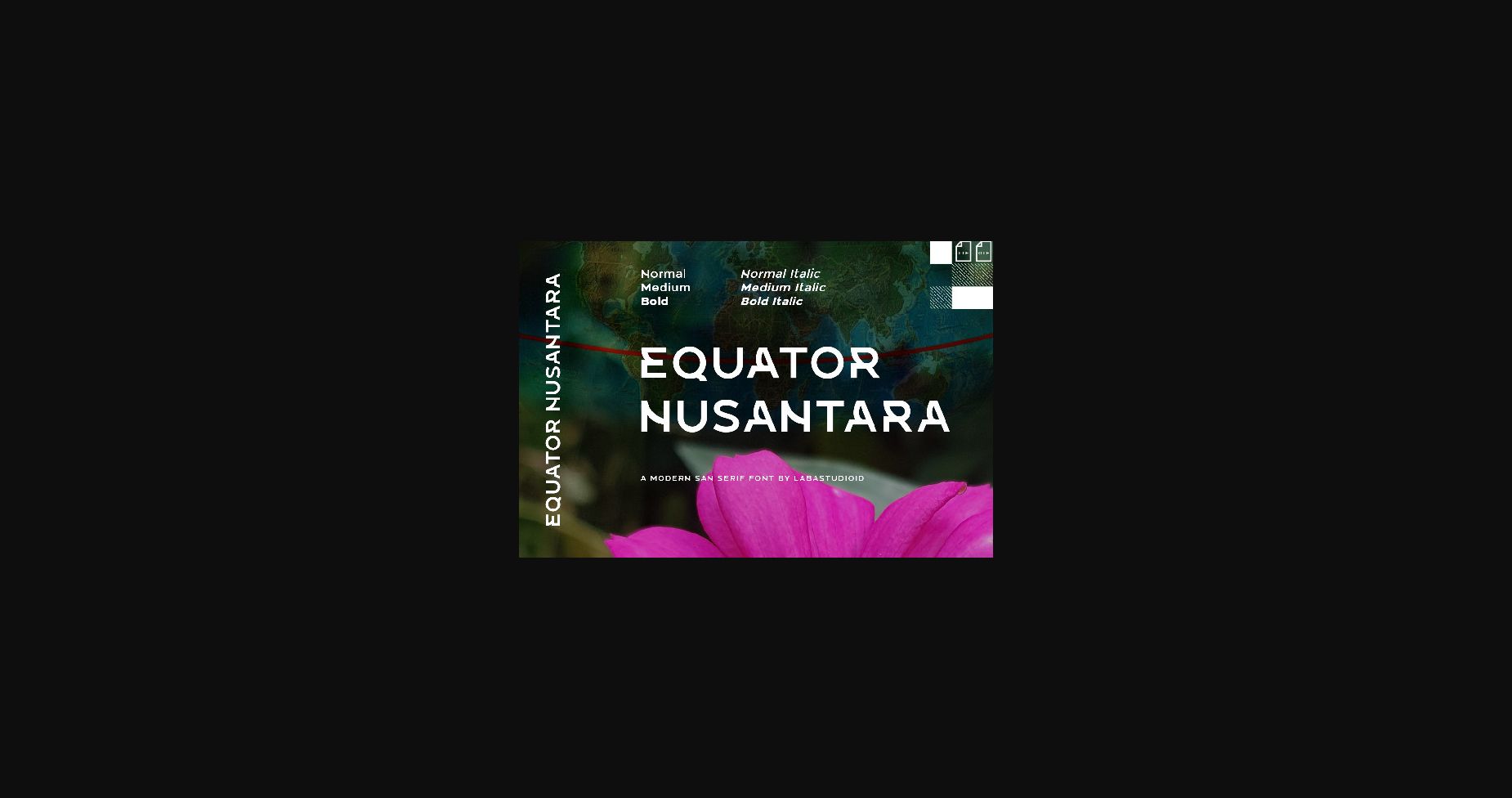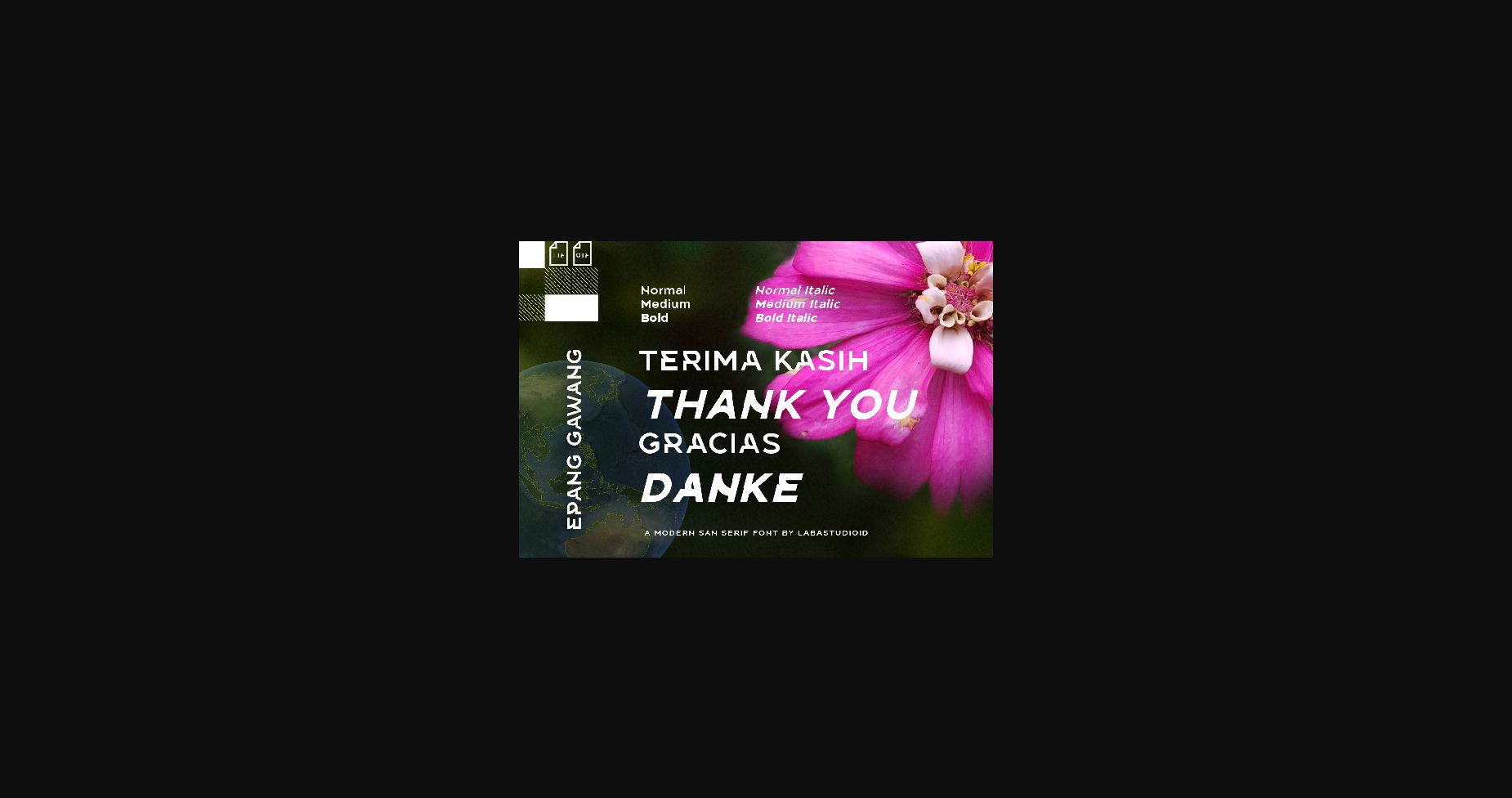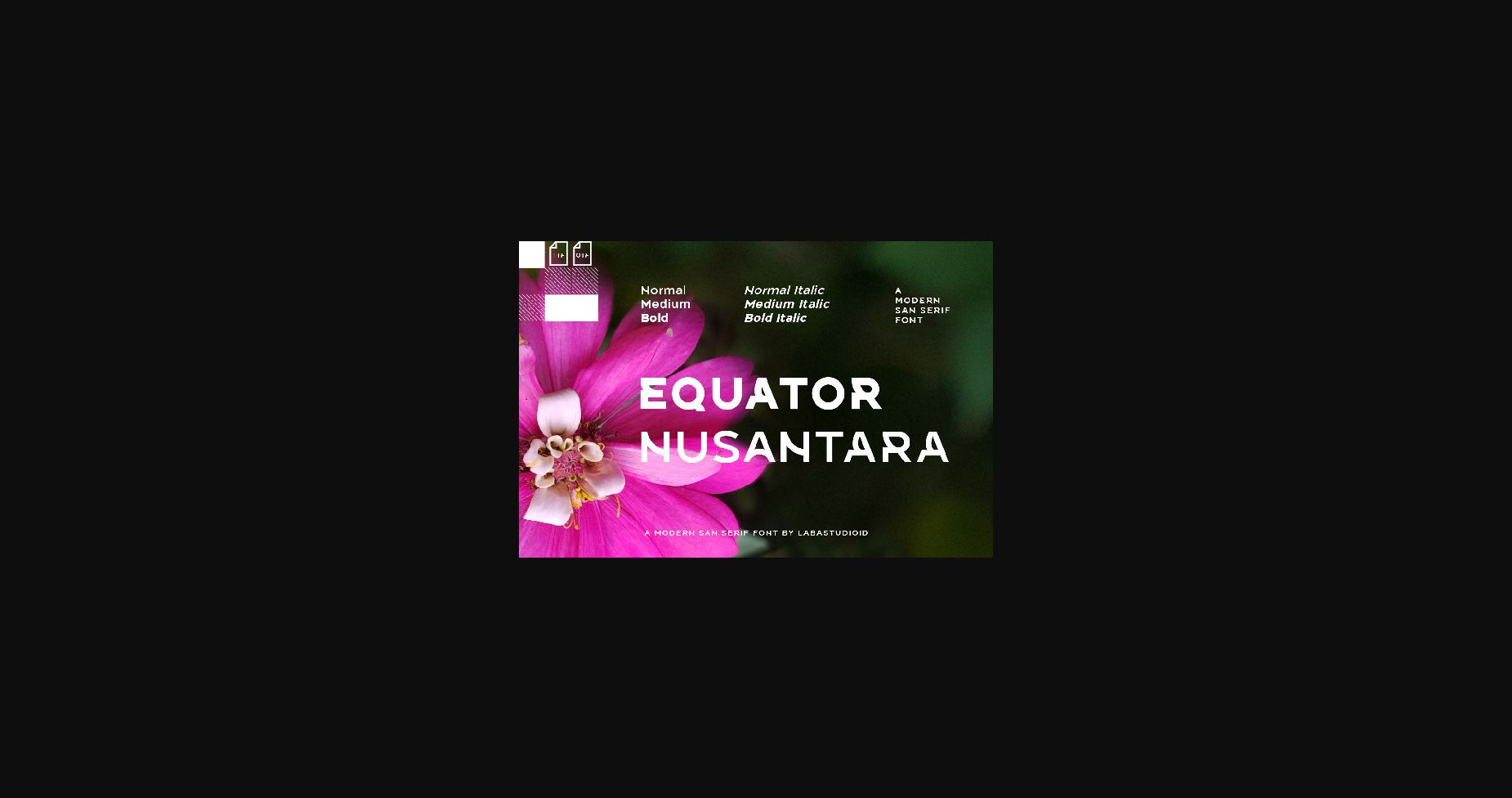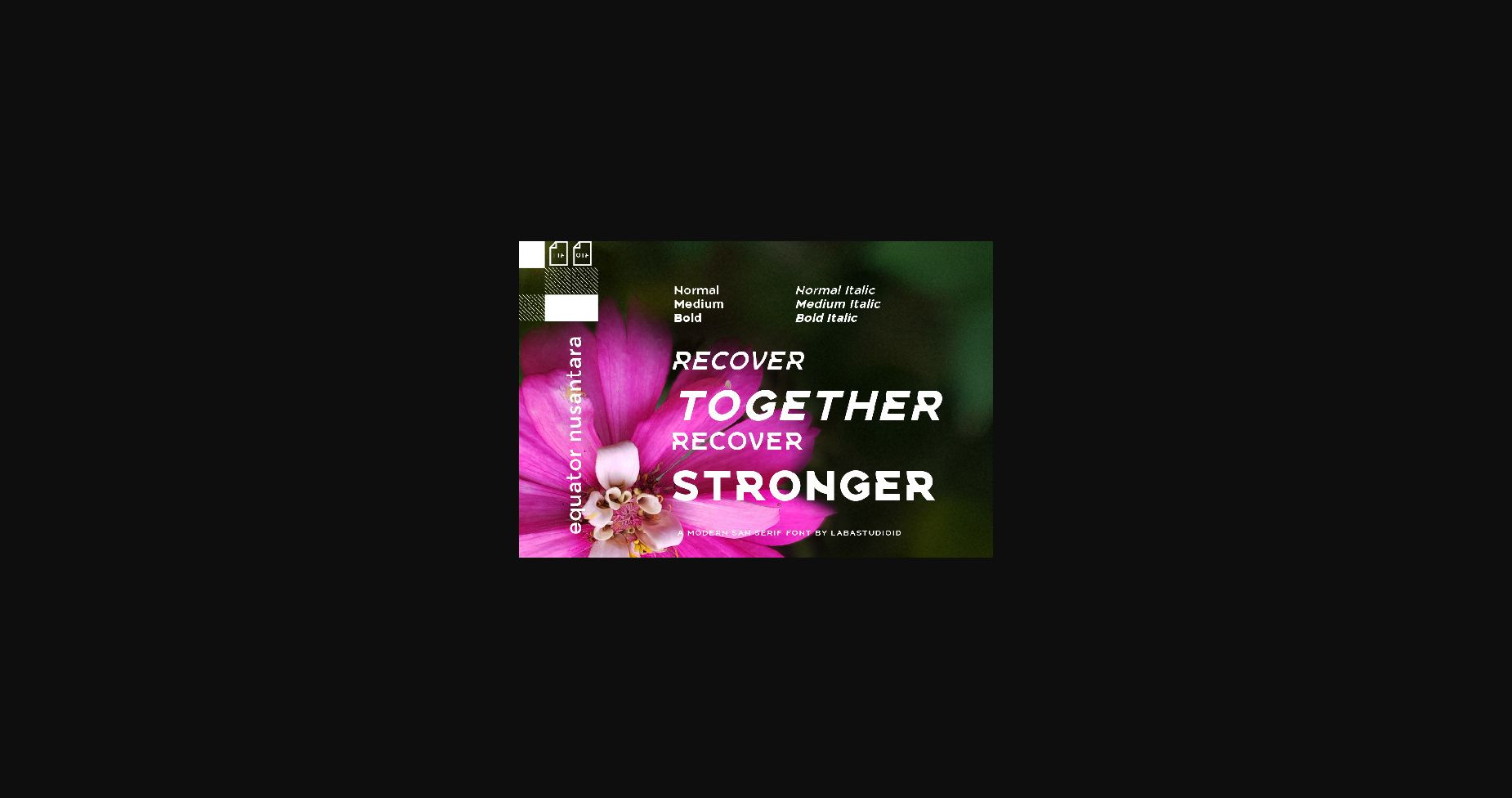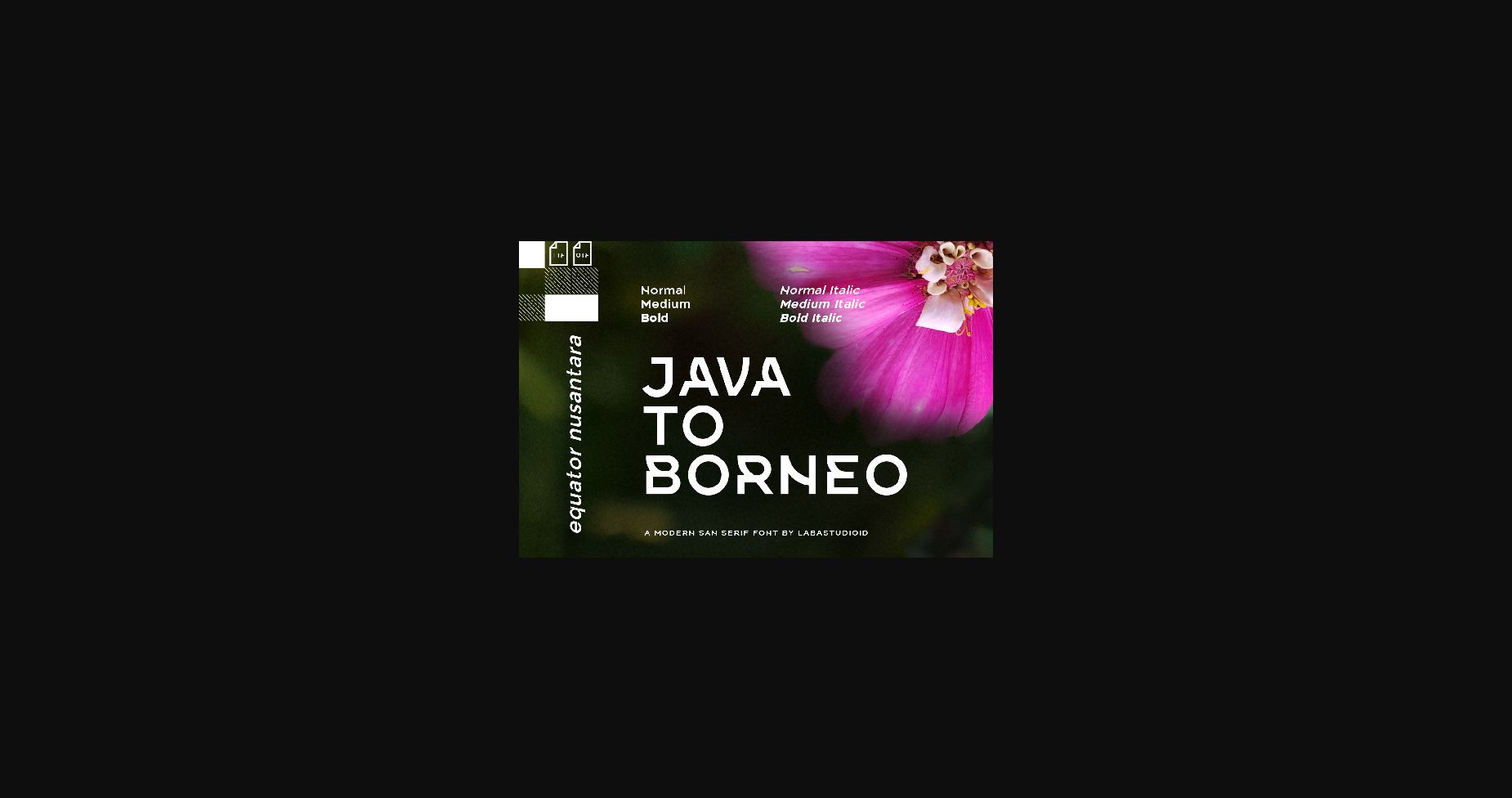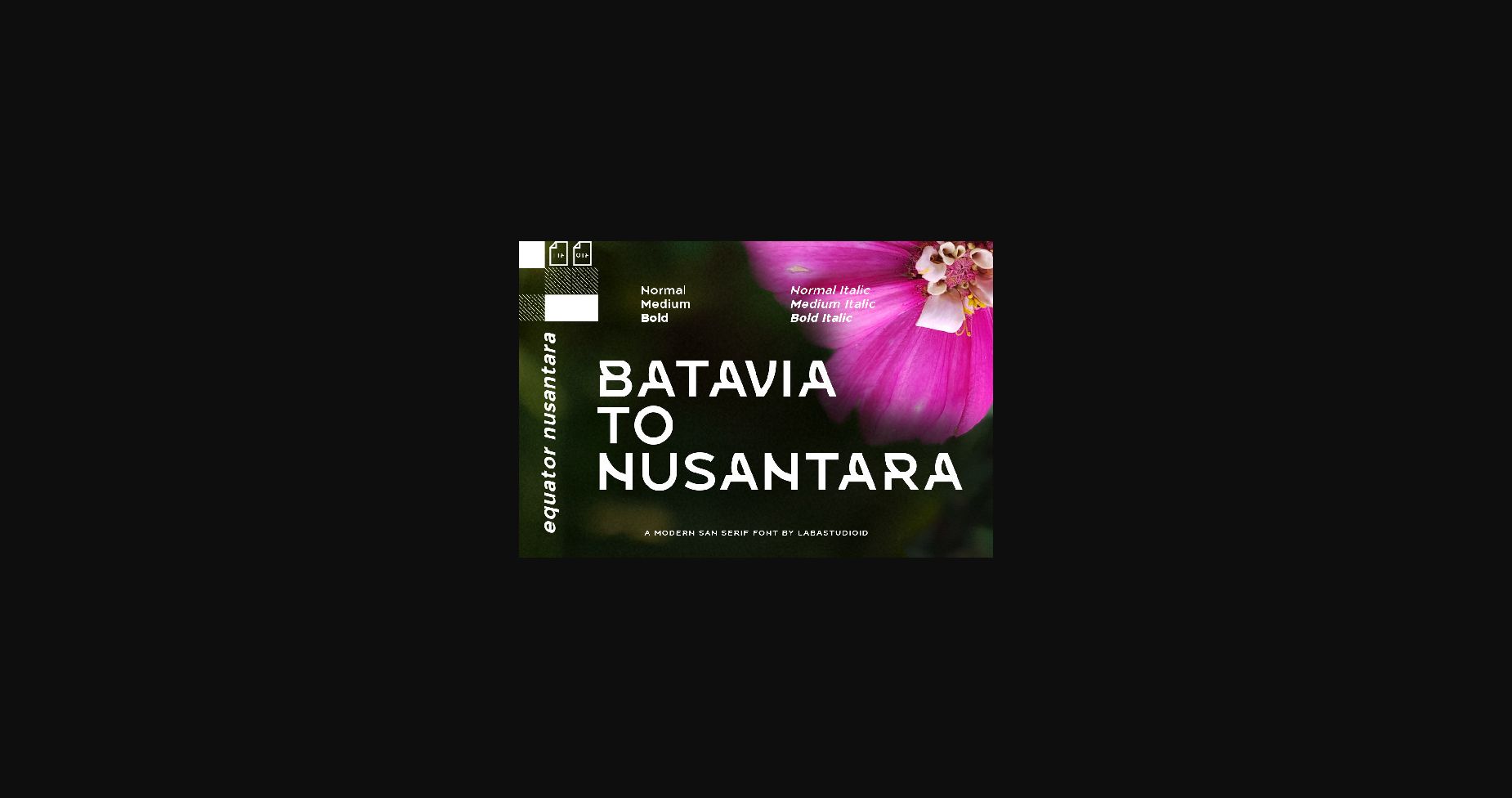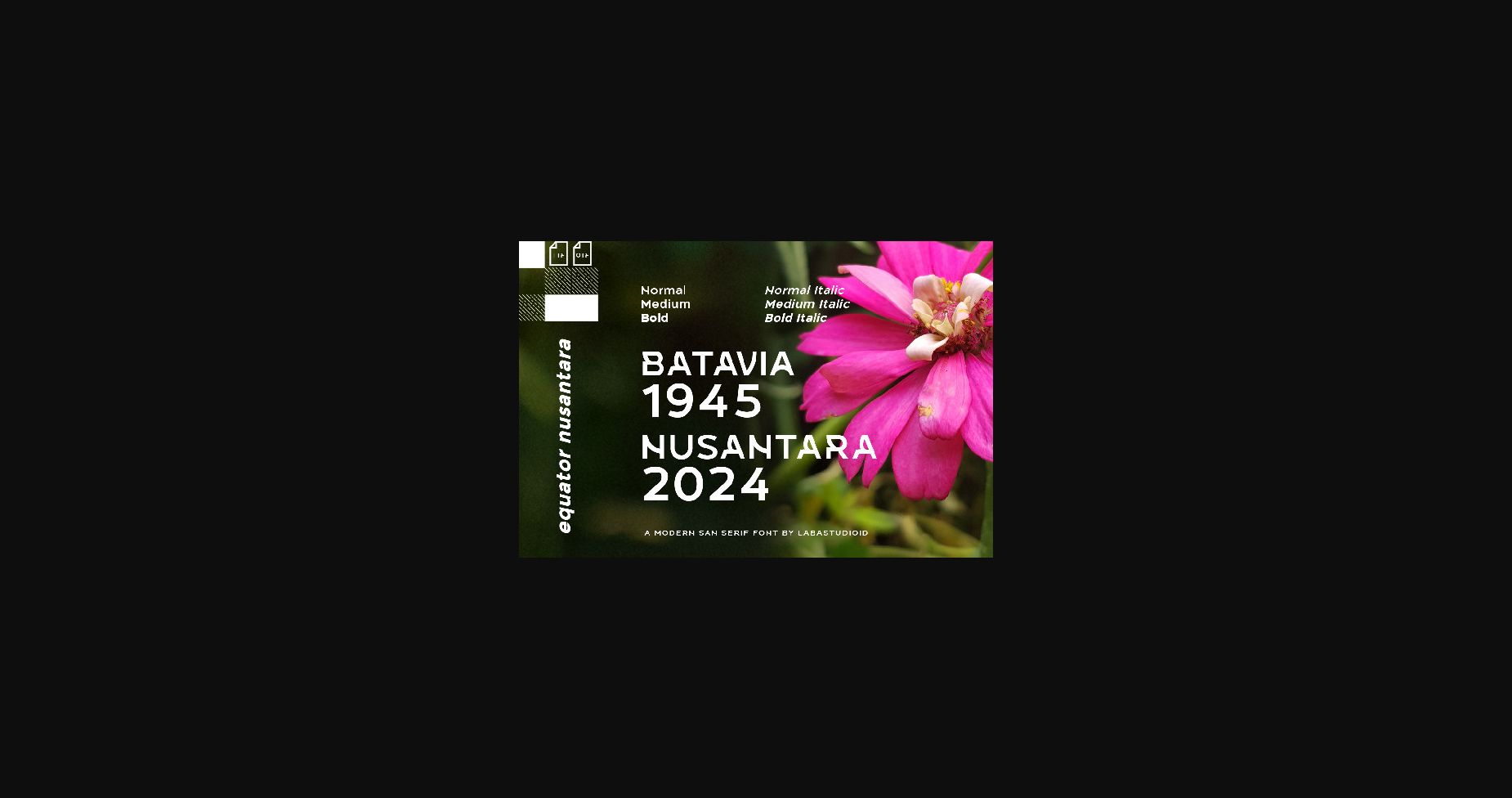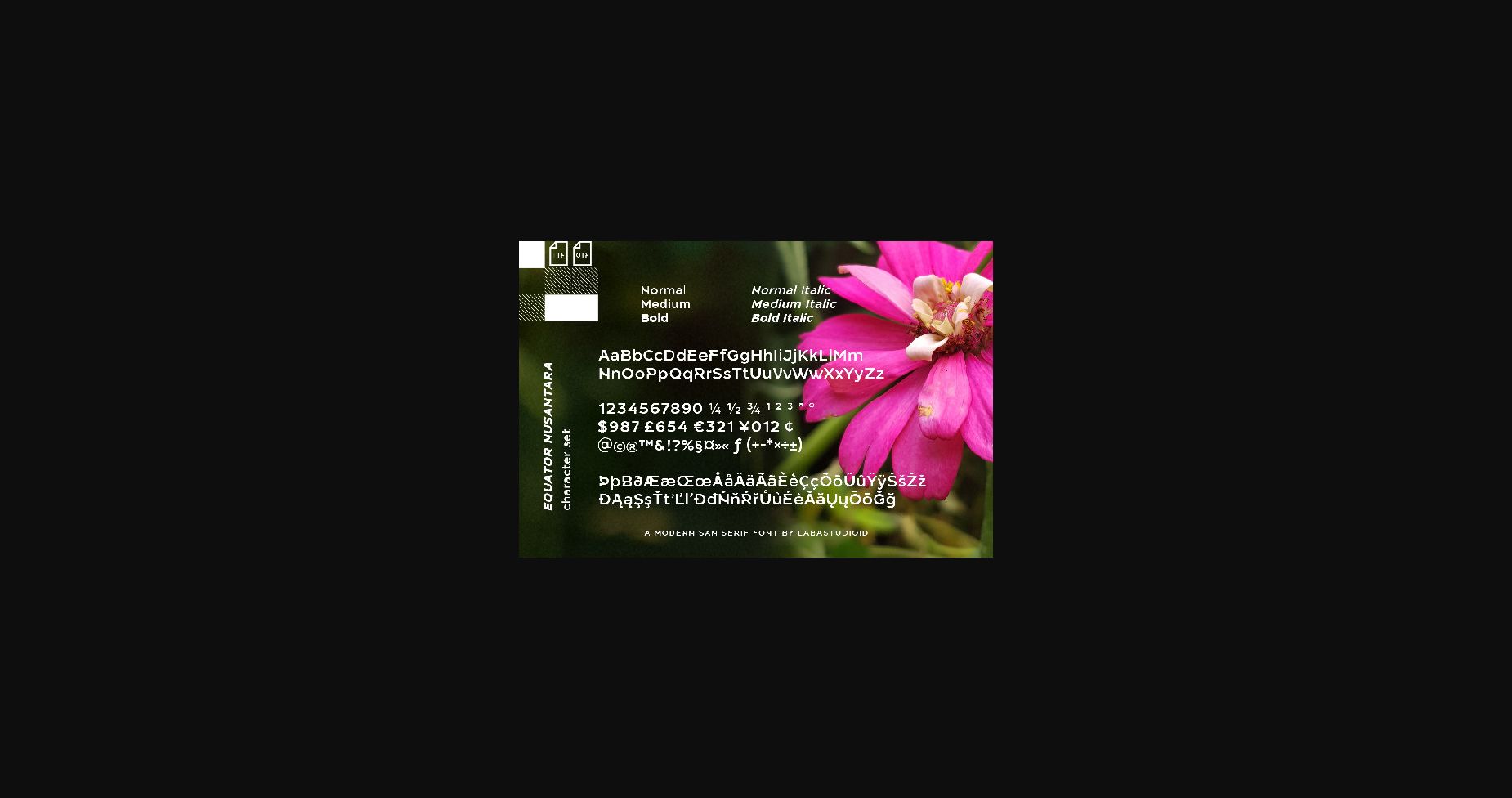
Equator Nusantara Font
Equator Nusantara is a very modern sans serif font with a unique indentation style for some of the letters that makes each of your designs more characterful, unique and highly recognizable.